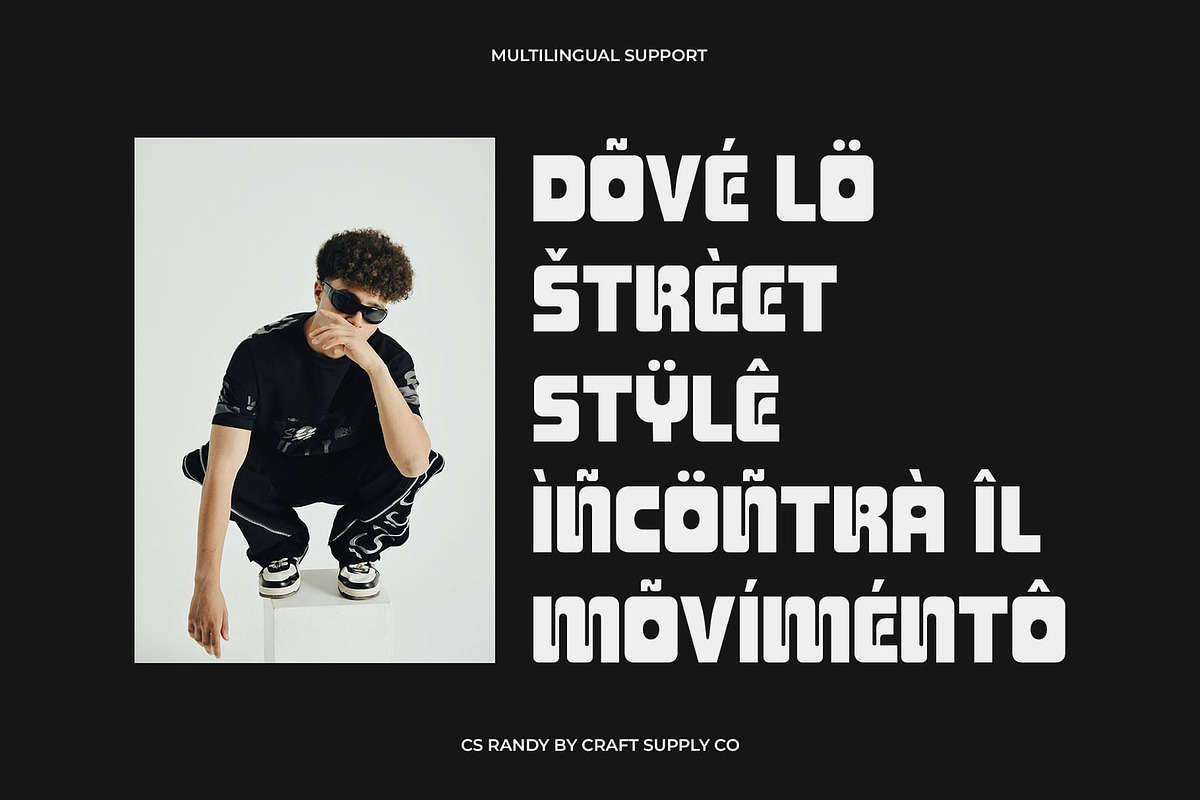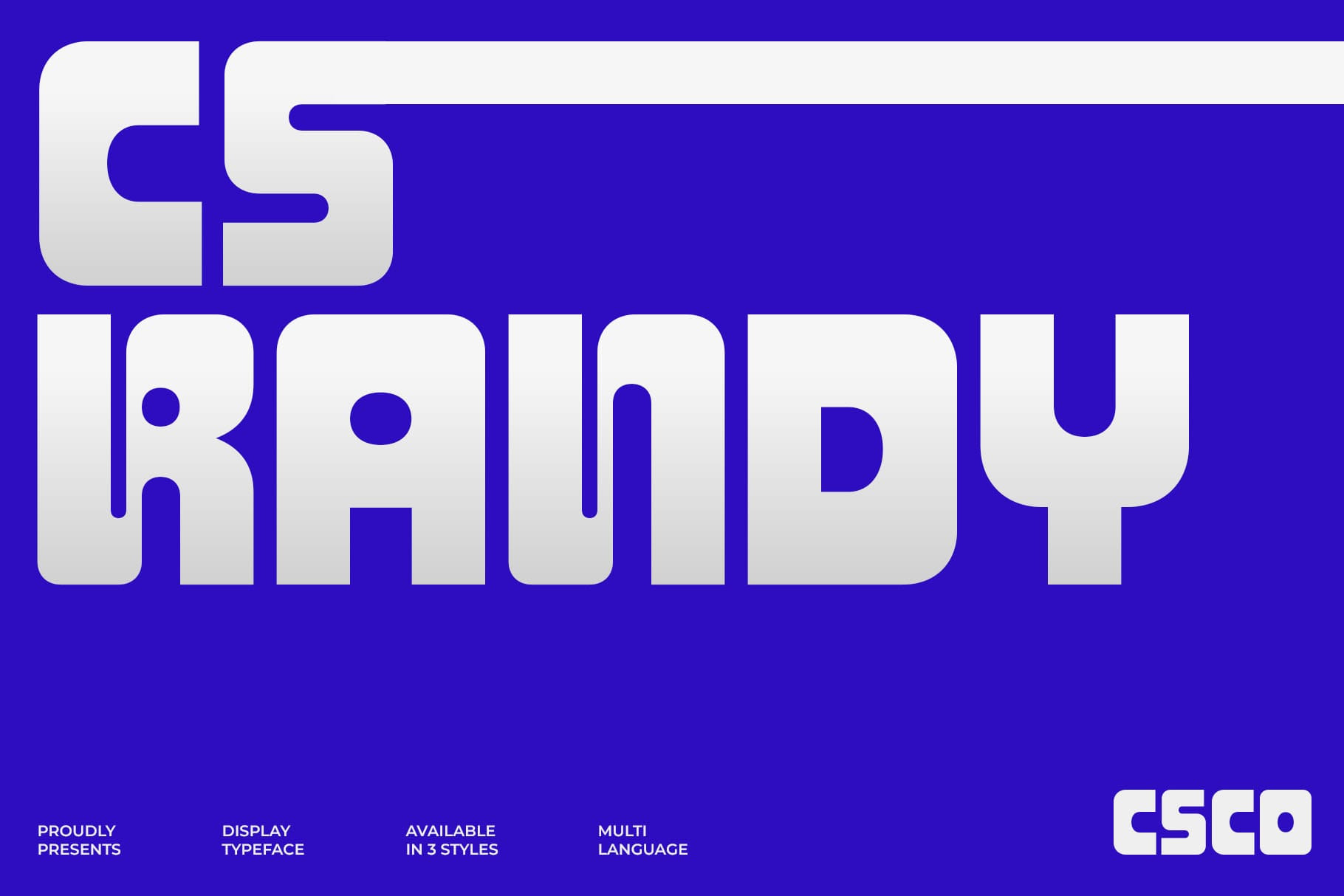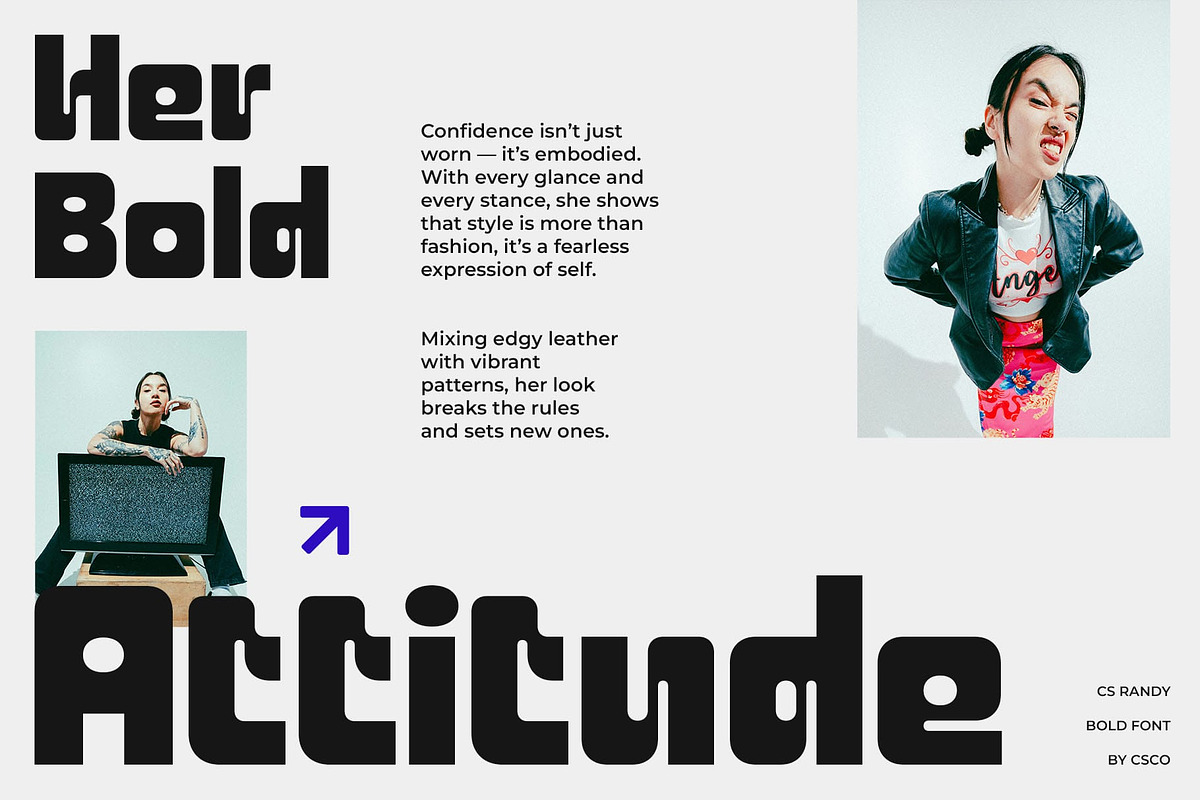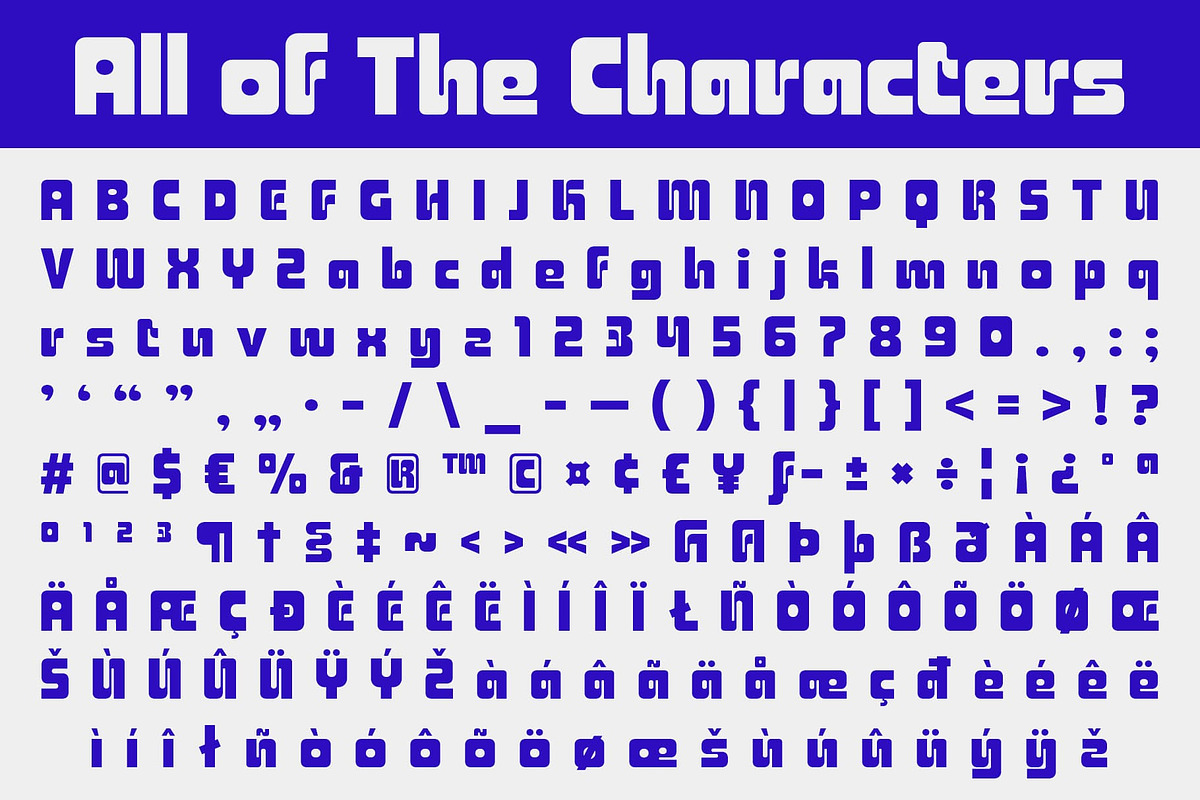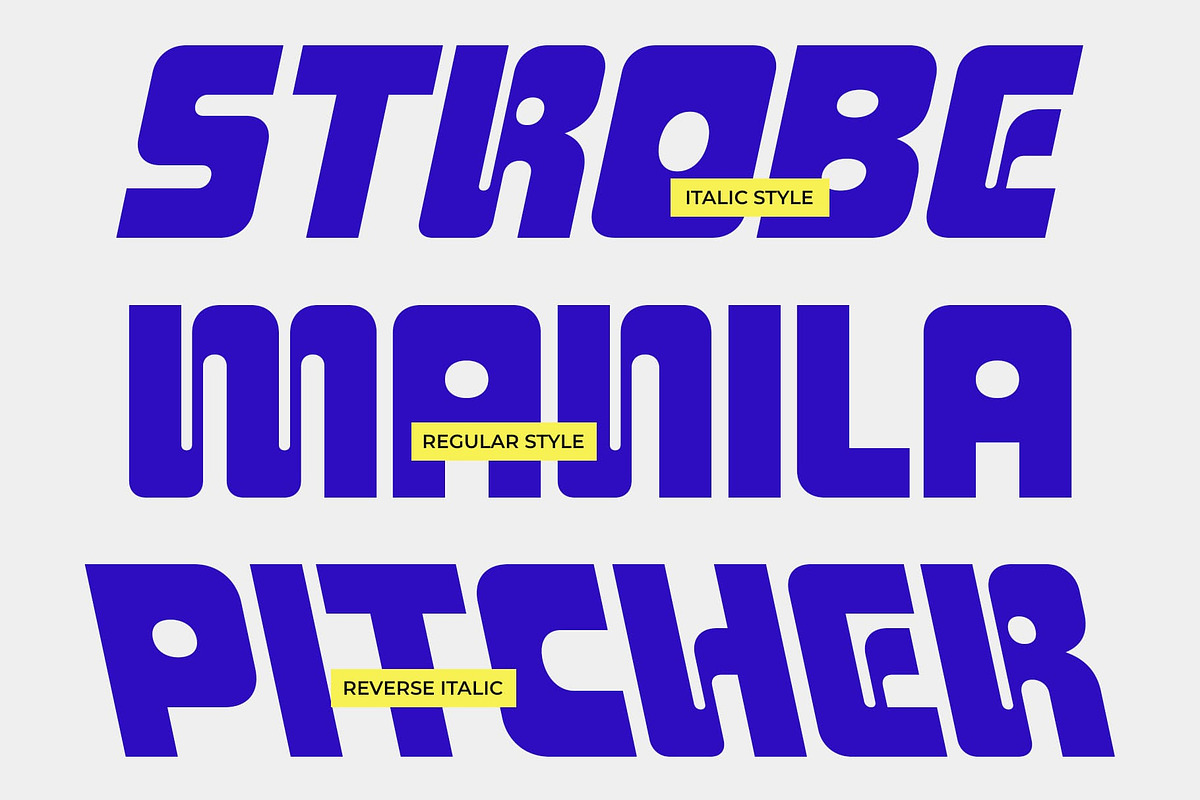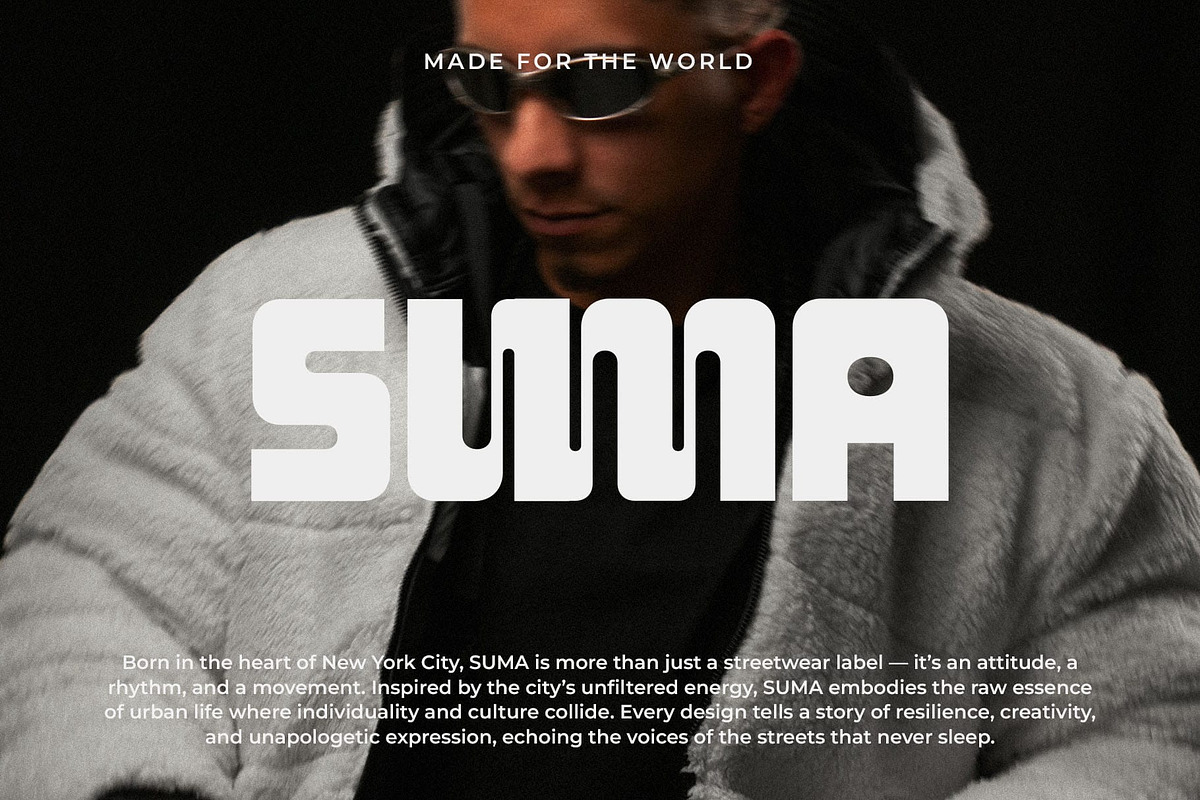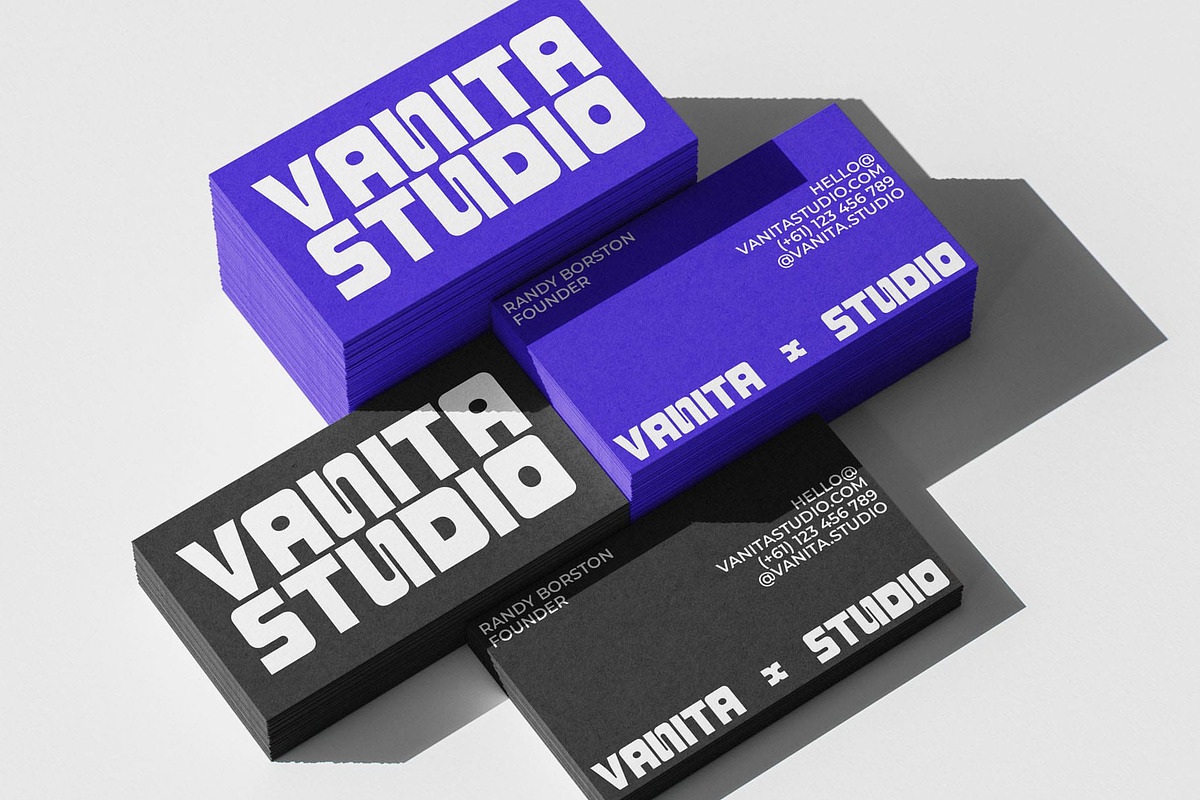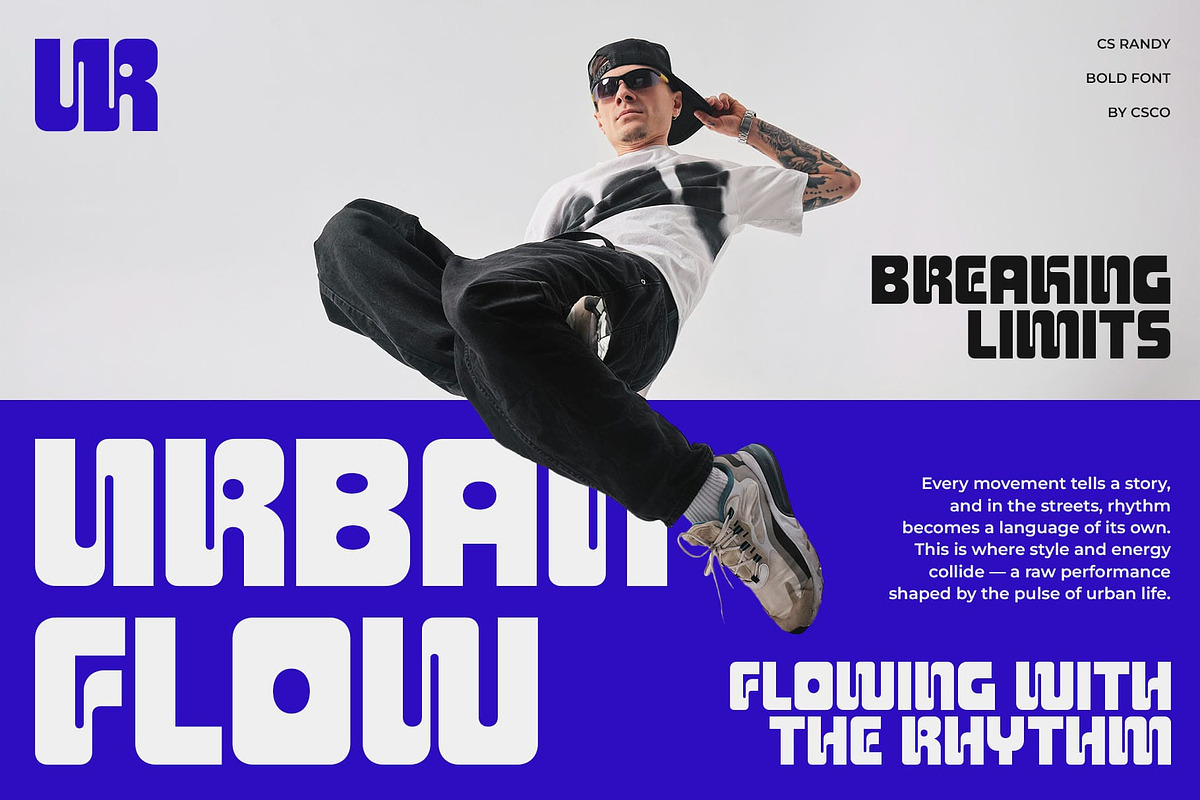
CS Randy – Bold Display Font
CS Randy – Bold Display Font with Futuristic Techno Style
Bold Display Font with Futuristic and Y2K Influence
Modern Design with Futuristic Energy CS Randy is a bold display font crafted with clean lines and strong geometric structure. Its modern design is infused with futuristic and Y2K aesthetics, giving it a distinctive edge that feels both nostalgic and forward-looking. Built for impact, it ensures your text stands out in any creative project.
Techno Structure for Bold Statements Defined by its techno-inspired framework, CS Randy thrives in designs that demand clarity and power. The precise construction of each character adds rhythm and balance, while the futuristic styling projects innovation and creativity. This makes it a go-to choice for designers exploring themes of technology and digital culture.
Perfect for Sci-Fi and Tech Branding From sci-fi game titles to tech-inspired branding, CS Randy adapts seamlessly across digital and print applications. Its bold personality makes it ideal for logos, UI design, and digital promotions, while its futuristic aura adds drama to dystopian book covers, posters, and immersive storytelling visuals.
A Typeface for the Future CS Randy blends modern professionalism with experimental Y2K flair, making it a versatile companion for forward-thinking projects. Whether you are designing for gaming, branding, or digital art, this display font provides the futuristic structure and visual intensity needed to push your work into the spotlight.
- CS Randy Regular
- CS Randy Italic
- CS Randy Reverse Italic